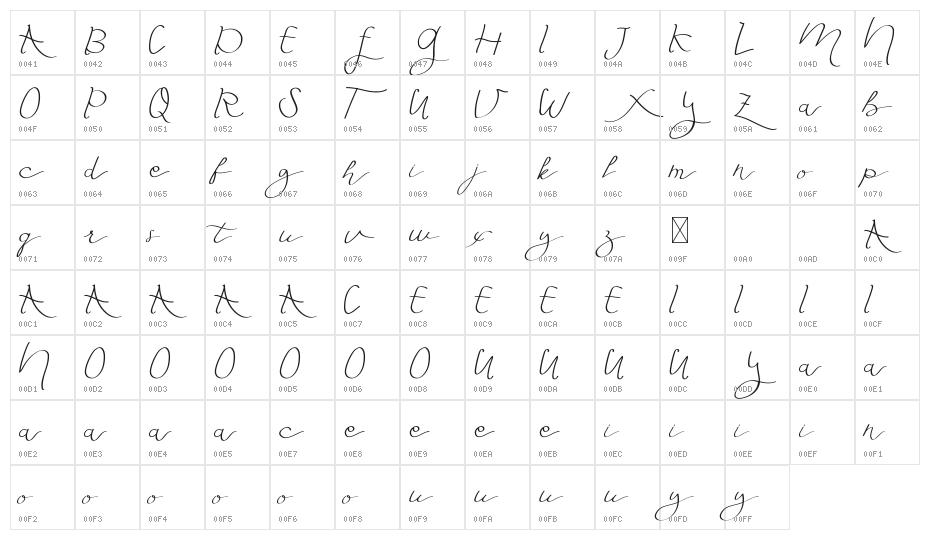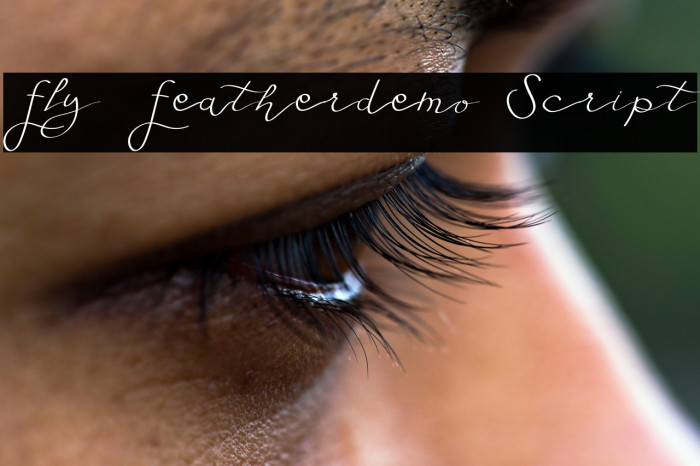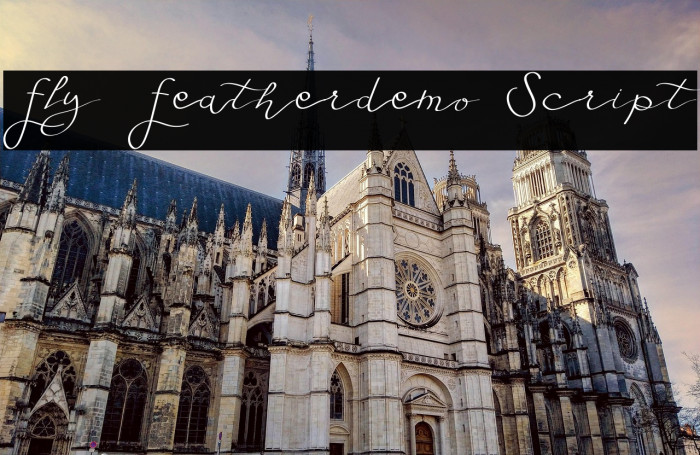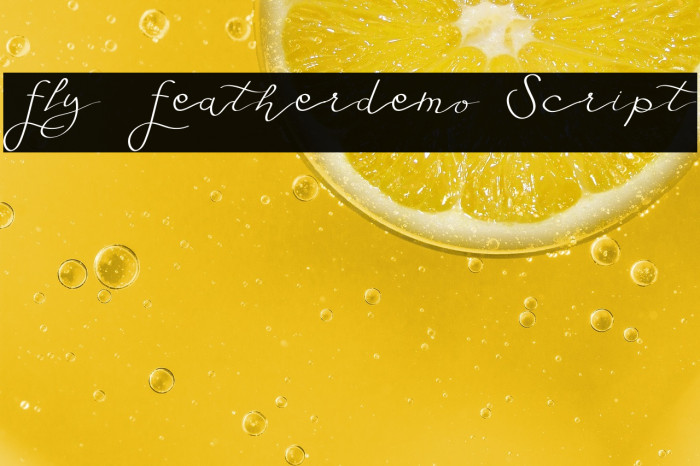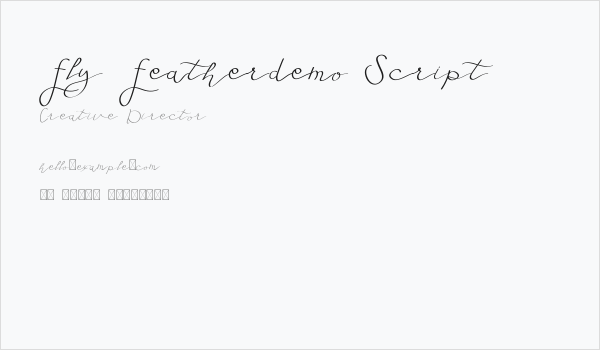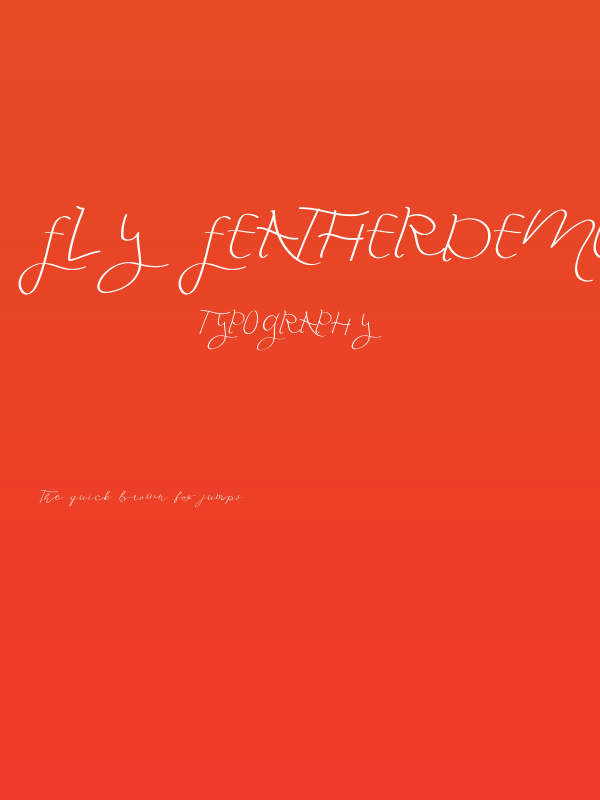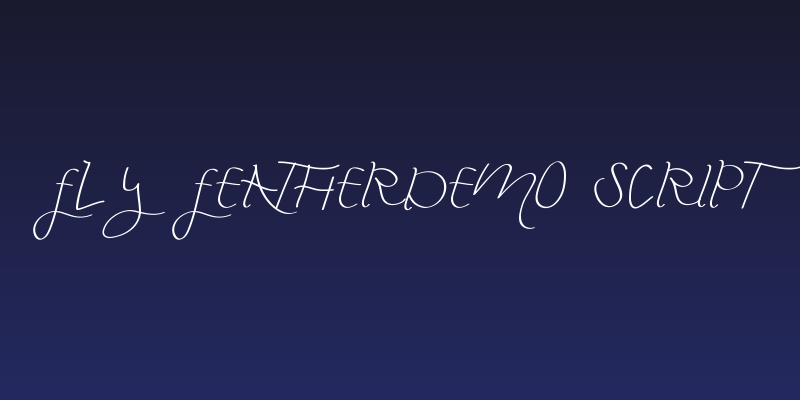
Fly Featherdemo Script Font
Fly Featherdemo Script Description
This elegant script font features a flowing, cursive style with delicate, sweeping strokes that mimic the fluidity of handwriting. The characters are interconnected, creating a seamless and graceful appearance. The uppercase letters are ornate and slightly larger, while the lowercase letters maintain a consistent flow, enhancing readability. The font's thin lines and gentle curves give it a sophisticated and airy feel, making it ideal for projects that require a touch of elegance and personalization.
| Use Case | Invitations, Personal branding, Elegant logos |
| Proposed Projects | Ideal for wedding invitations, greeting cards, personal branding, and elegant logo designs. |